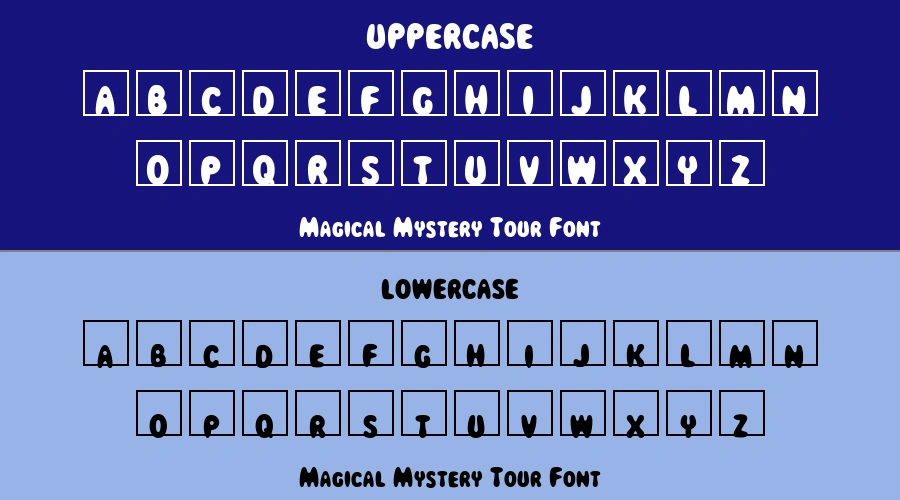
About Magical Mystery Tour Font
Magical Mystery Tour Font embodies typographic excellence through its masterful combination of ligatures and market differentiation. Created for annual reports, this typeface delivers exceptional clarity and creative impact across all applications. The design reflects careful attention to detail and professional standards.
Advanced capabilities include distinctive structural clarity and versatile standard ligatures, giving designers creative control. When used in point-of-sale displays, Magical Mystery Tour Font exhibits remarkable language switching. The harmonious balance between joint construction and artistic merit sets this typeface apart.